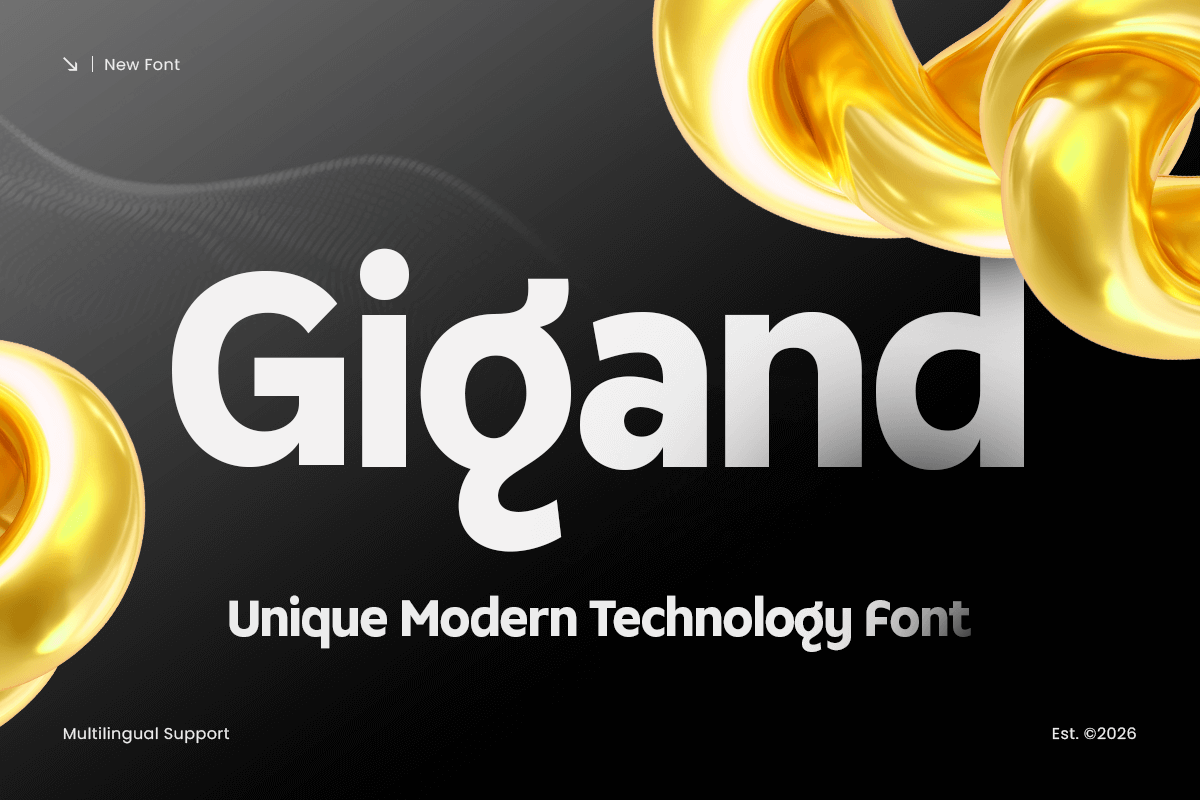
Gigand
-Modern Corporate Technology FontGigand - Modern Corporate Technology Font
Gigand is a unique modern technology font crafted to deliver a sharp, forward-thinking look with clean digital precision. Designed with contemporary tech-inspired forms and a confident geometric rhythm, this typeface brings a futuristic tone that feels sleek, innovative, and instantly modern.
Built for tech-forward visuals, Gigand works seamlessly across logos, wordmarks, UI/UX design, app headers, dashboards, website hero sections, posters, presentations, product packaging, and social media campaigns. Its modern structure keeps typography crisp and readable while adding a distinctive technology edge across both digital and print layouts.
Whether you’re building a startup identity, designing a futuristic product brand, creating gaming or esports visuals, or crafting modern digital campaigns, Gigand provides a unique tech foundation that makes your typography feel smart, powerful, and unmistakably contemporary.
Inspiration Behind Gigand
Gigand is inspired by futuristic interface typography and modern digital branding—where clean geometry, precision spacing, and tech-driven character create instant credibility. The design focuses on sleek structure and innovative energy to support technology branding, modern UI systems, and sci-fi-inspired visuals with a polished, professional feel.
Gigand Font Features:
Unique modern technology letterforms with futuristic character
Clean geometric structure for sleek branding and digital clarity
Ideal for logos, headlines, UI/UX, and tech-forward campaigns
Tech logos, wordmarks, and startup brand identity systems
UI/UX, app interfaces, dashboards, and website headers
Futuristic posters, digital ads, and product launch campaigns
Gaming, esports branding, and sci-fi themed visuals
Presentations, social media graphics, and modern promo layouts